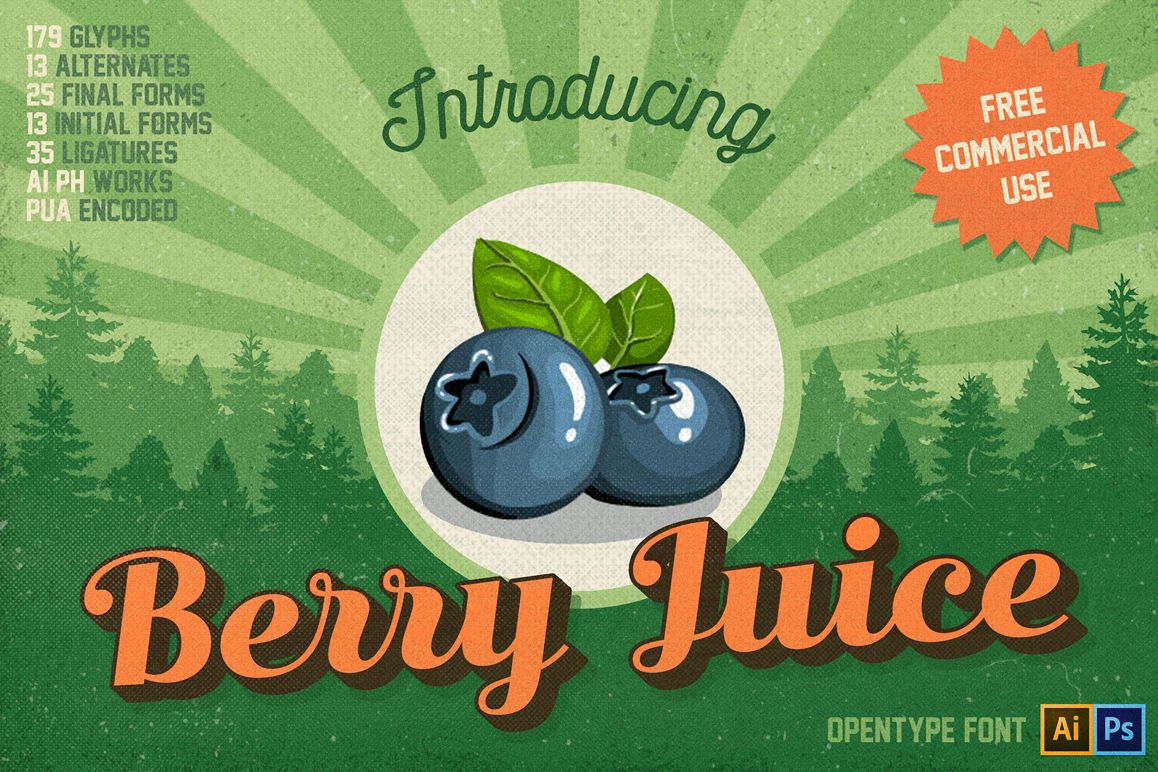
Berry Juice
Introduce my new job - vintage font Berry Juice. This font is OpenType. Berry Juice is very easy to use. It works in Illustrator, Photoshop and another programs. All alternate glyphs work automatically. This font is PUA encoded. It is perfect for your project. You can create logos or posters and much more. Free commercial use!
Berry Juice font features:
• 179 glyphs
• 13 alternates
• 25 final forms
• 13 initial forms
• 35 ligatures
• PUA (private use areas)